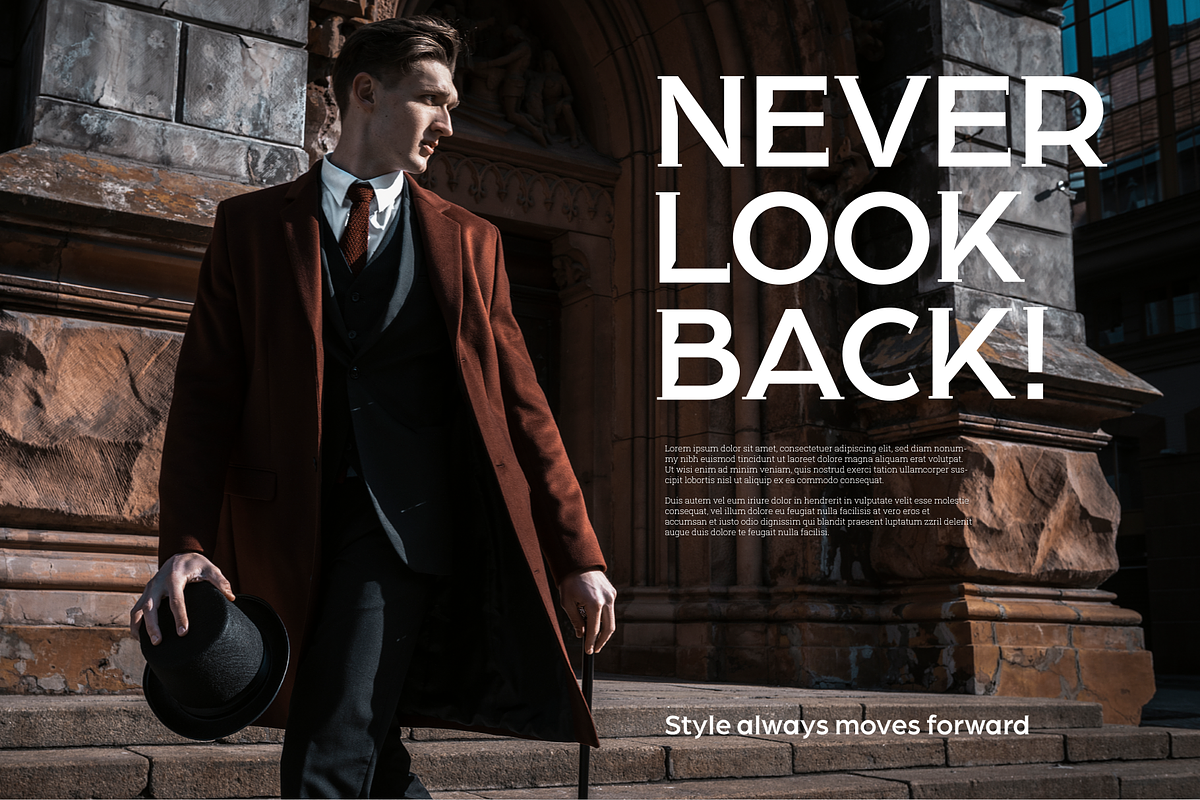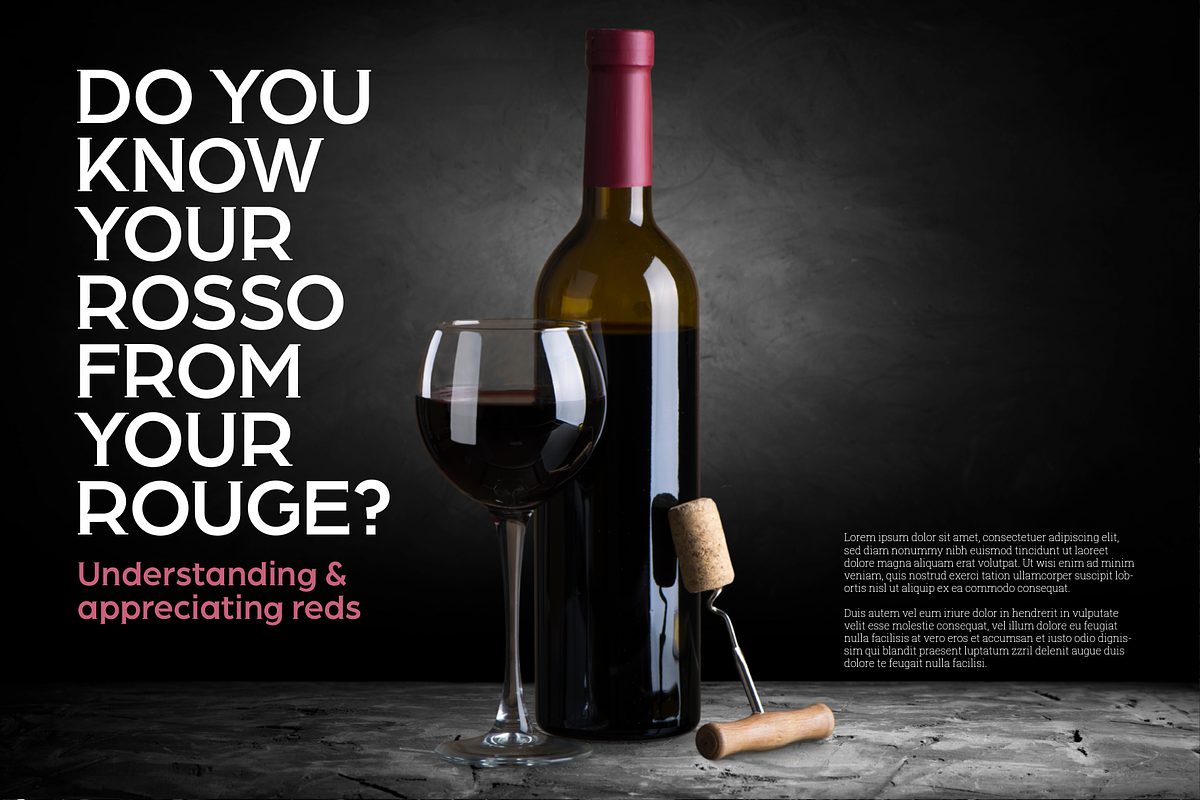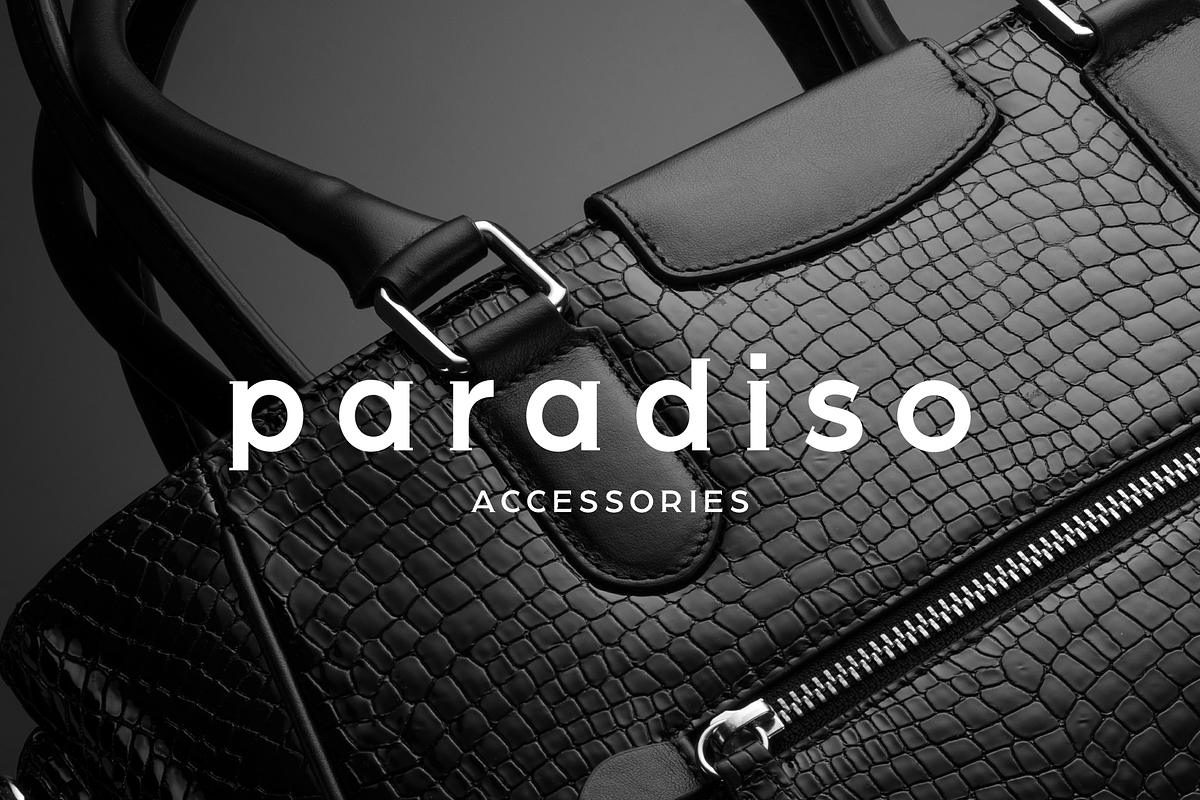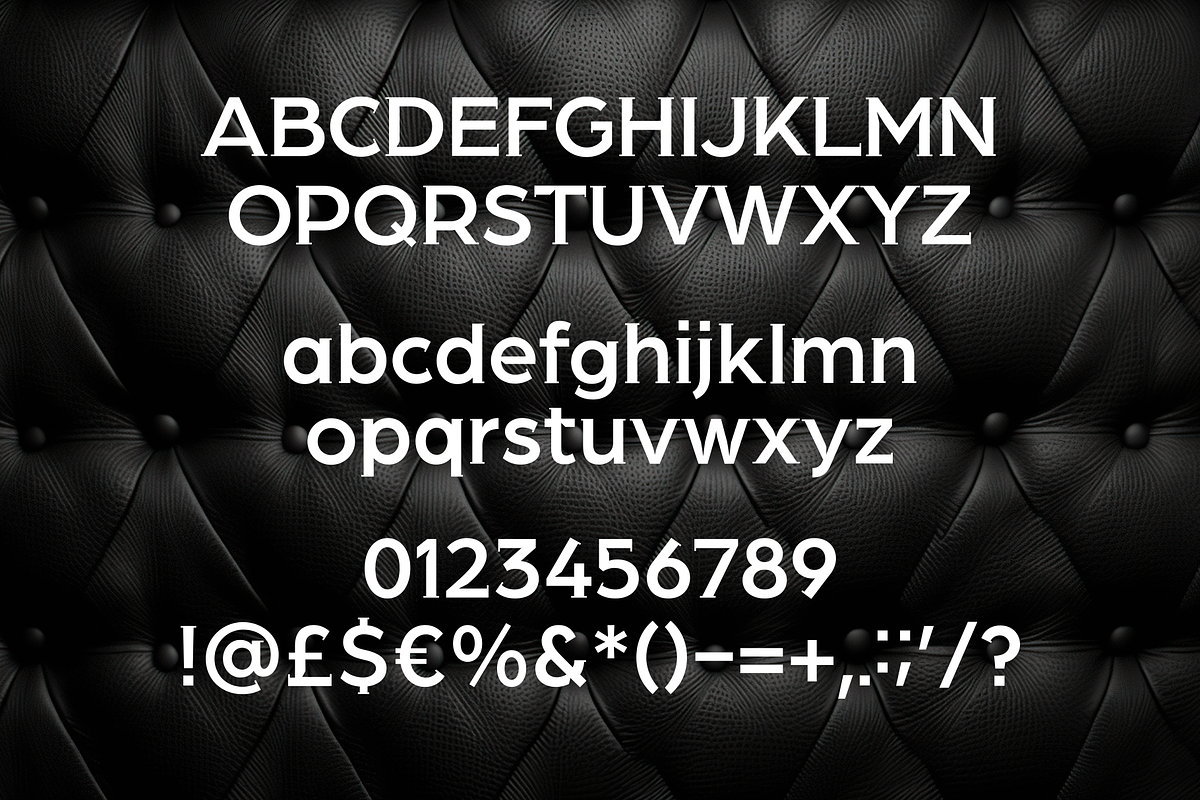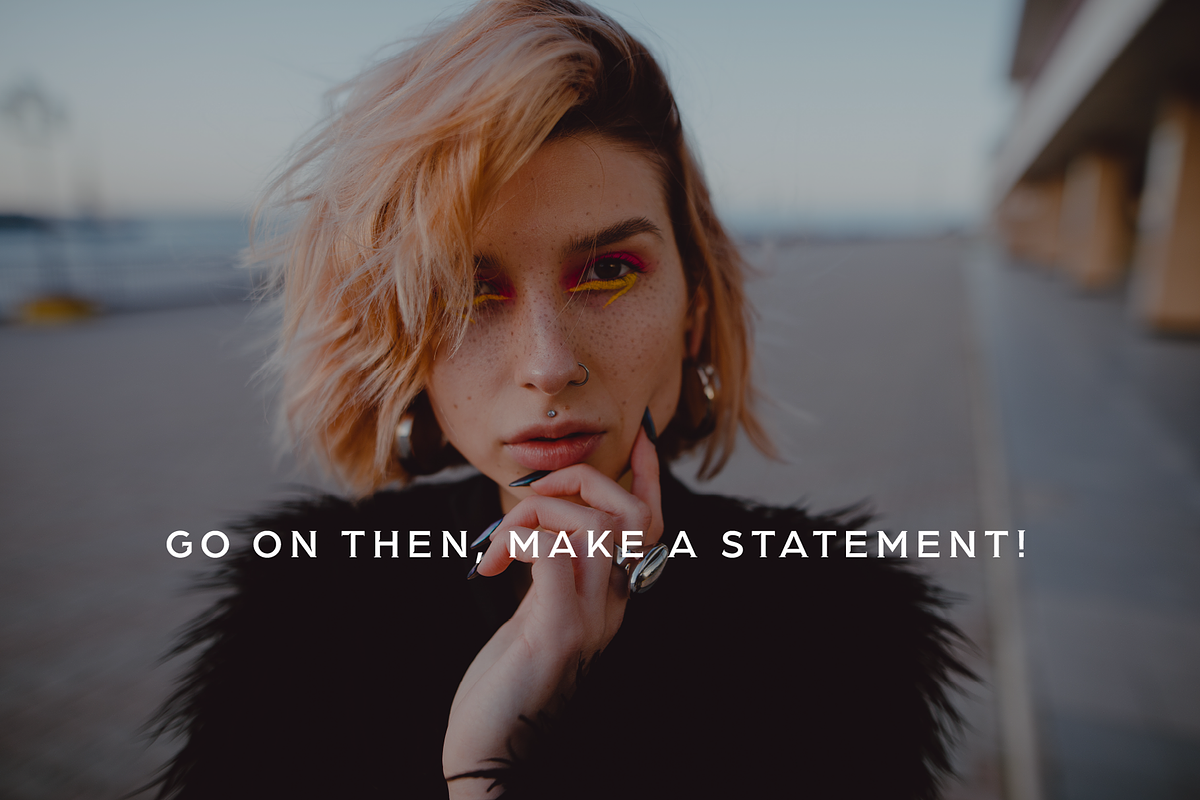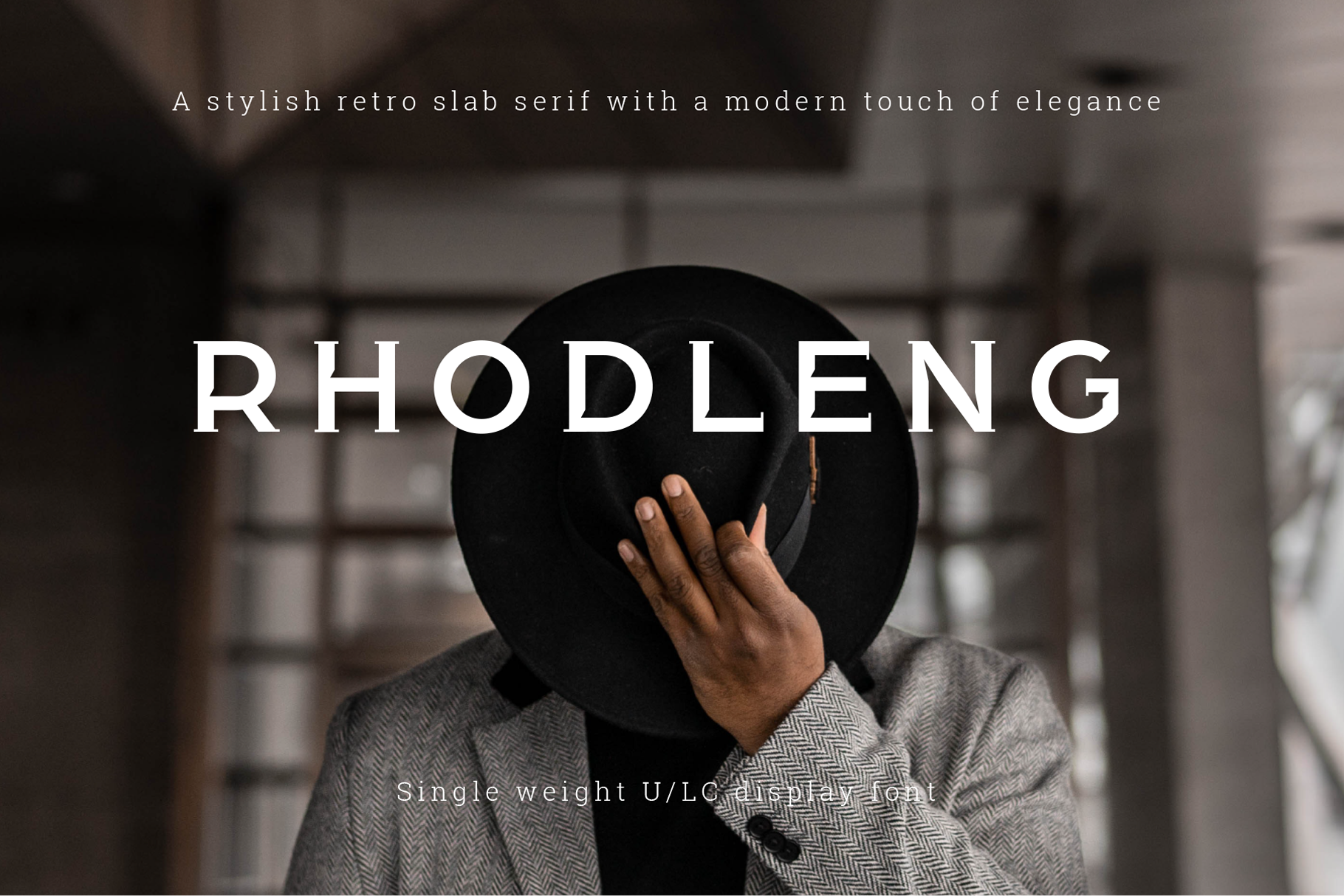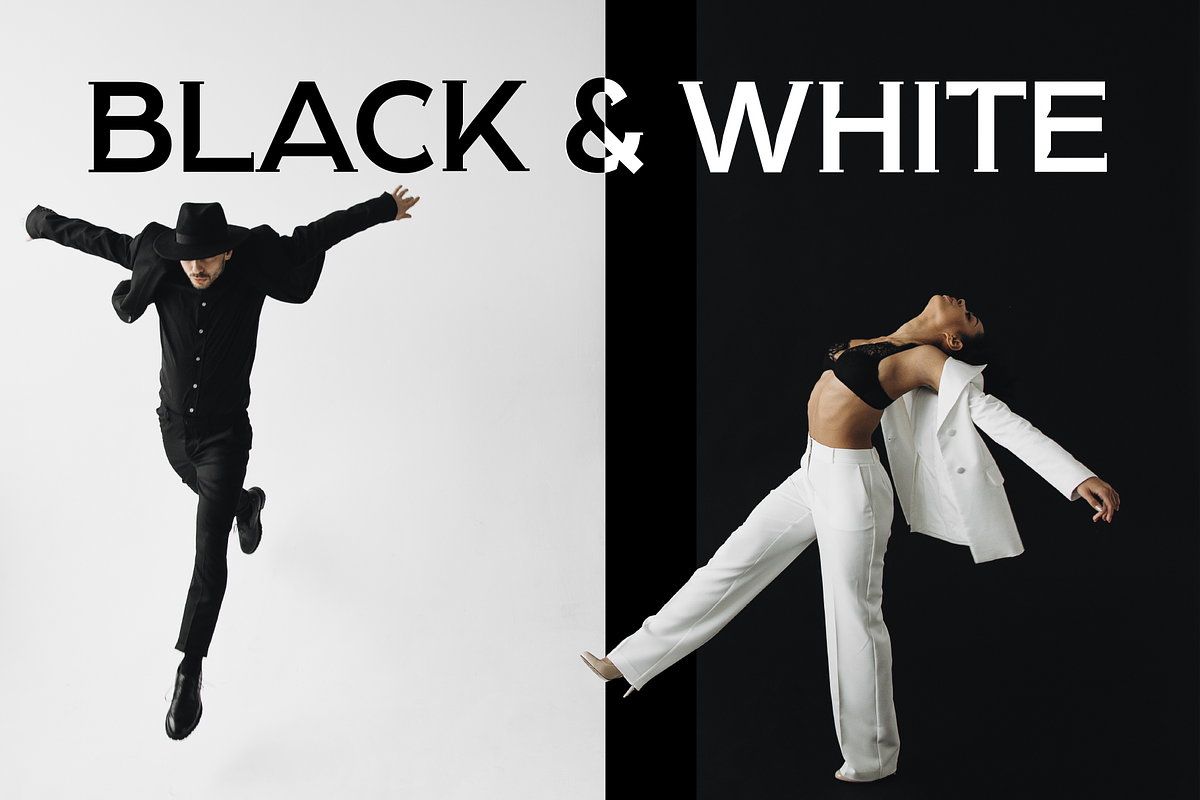
Rhodleng Display Font
A stylish and fashionable retro slab serif with a modern touch of elegance. A single weight U/LC display font perfect for fashion, beauty and everything style related.